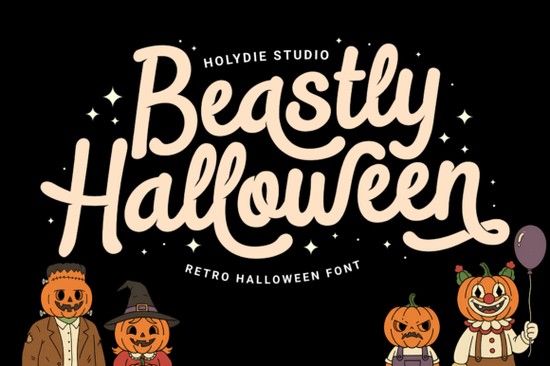
Beastly Halloween Font is a standout choice for anyone looking to add a whimsical, nostalgic touch to their Halloween designs. This retro-style display font blends bold, hand-drawn curves with playful swashes, making it perfect for creating eye-catching visuals that feel both vintage and modern. Whether you're designing party invitations, social media graphics, or merchandise, this font offers a unique blend of charm and character that’s hard to match.
If you're a designer, craftsperson, or small business owner, you know how important it is to find the right typeface that fits your project's tone. Beastly Halloween Font delivers on that front, offering a warm, approachable look with just the right amount of spooky flair. Its thick, rounded letters and subtle starbursts give it a friendly, family-friendly vibe, while its cartoonish elements add a fun twist that’s sure to grab attention.
One of the key strengths of Beastly Halloween Font is its versatility. It works well for a variety of uses, from retro Halloween party invitations to pumpkin patch flyers and children’s book titles. The font also includes PUA encoding, which means you can easily access all the glyphs, swashes, and alternate characters without needing special software. This makes it a great option for those who want to customize their designs with ease.
Why Choose Beastly Halloween Font?
For designers who love working with vintage aesthetics, Beastly Halloween Font is an excellent addition to your toolkit. It captures the essence of 1950s Halloween cartoons and candy packaging, giving your work a nostalgic feel that resonates with many audiences. The font’s playful style makes it ideal for projects that need to be festive but not too scary, such as seasonal branding, social media campaigns, or printable decorations.
When it comes to creative projects, having the right font can make all the difference. Beastly Halloween Font stands out because it combines elegance with a sense of humor. Its smooth, flowing strokes and bold curves create a dynamic visual impact that’s both readable and stylish. This makes it a go-to choice for anyone looking to add a little magic to their Halloween-themed designs.
How to Use Beastly Halloween Font
Whether you’re designing for print or digital use, Beastly Halloween Font is easy to work with. It’s suitable for a wide range of applications, including posters, logos, and merchandise. For example, if you’re creating trick-or-treat bags or fall festival flyers, this font can help you achieve a cohesive, professional look that feels authentic and engaging.
For those who are new to using display fonts, Beastly Halloween Font is user-friendly and doesn’t require advanced design skills. Its clear structure and consistent spacing make it easy to integrate into your workflow. Plus, with the availability of alternate characters and swashes, you can experiment with different styles to find what works best for your project.
Beastly Halloween Font is more than just a typeface it’s a tool that can bring your Halloween designs to life. With its combination of charm, playfulness, and nostalgia, it’s a valuable resource for anyone involved in graphic design, crafting, or small business marketing. Whether you’re creating invitations, merchandise, or social media content, this font offers the flexibility and style you need to stand out.
As you start planning your next Halloween project, consider adding Beastly Halloween Font to your collection. Its unique blend of retro and modern elements makes it a versatile choice that can enhance a wide range of designs. With its easy-to-use features and expressive character, it’s a font that’s sure to become a favorite among creators of all skill levels.